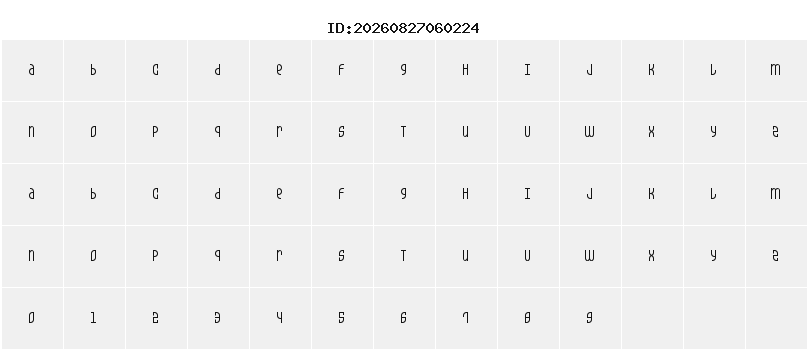
• Font Name: 5Champagne Unicase
• Designer: Noah - 10 year old typomaniac
• Description: ‚Äú5Champagne Unicase‚Äù was built with FontStruct ‚Äú5Champagne Unicase‚Äù is based on ‚ÄúCircles Filtered‚Äù by ‚ÄúIsaiah Garcia‚Äù (http://fontstruct.com/fontstructors/isaiah_garcia)
5Champagne Unicase.ttf is a modern, elegant sans-serif font designed for ultimate readability and visual harmony. Perfect for branding, headlines, web design, and print materials.